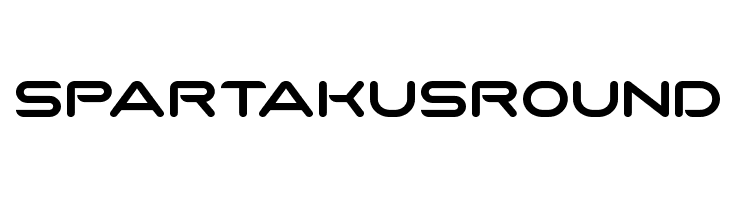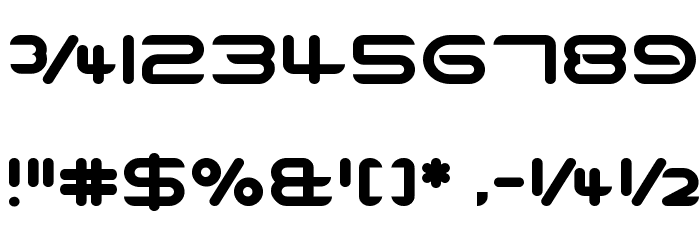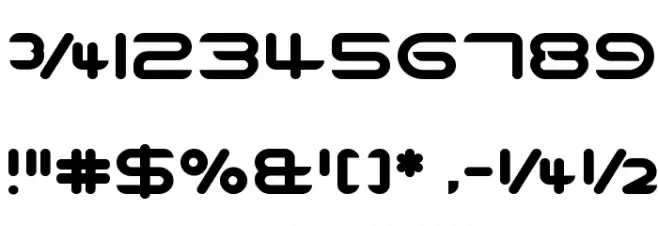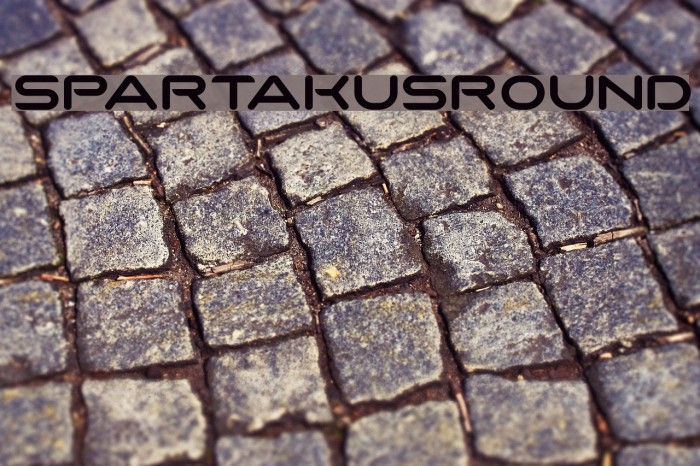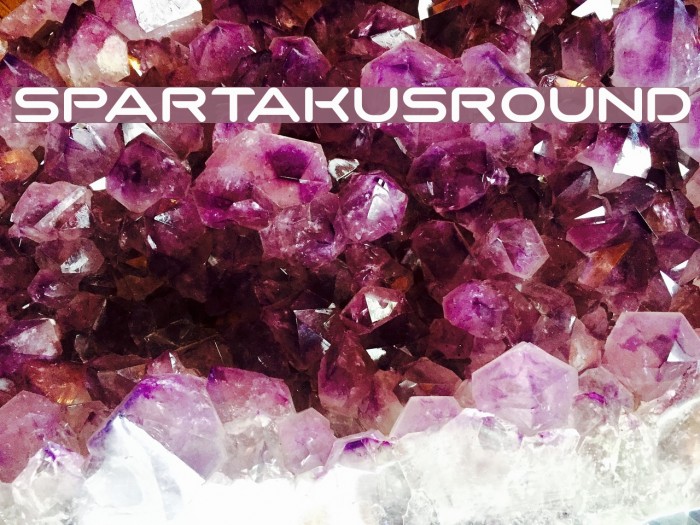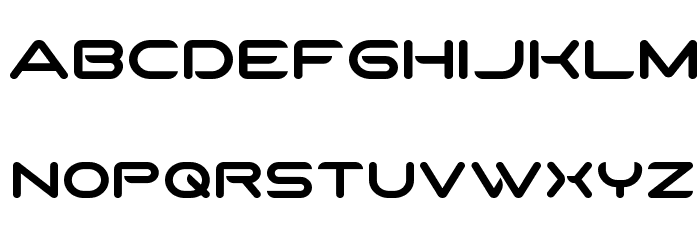
SparTakusRound Font
SparTakusRound Description
This font features a modern, rounded style with a sleek and futuristic appearance. The characters are uniform in width, creating a harmonious and balanced look. The rounded edges give it a friendly and approachable feel, while maintaining a sense of professionalism. The design is clean and minimalistic, making it versatile for various applications. The numerals and special characters are consistent with the overall style, ensuring readability and aesthetic appeal. This font is ideal for projects that require a contemporary and polished look.
A modern, rounded font with a sleek and futuristic style from Uncategorized fonts.
- Proposed Projects: Ideal for tech branding, modern advertisements, user interfaces, and digital media.
- Use Case: Headlines, Logos, Digital Media